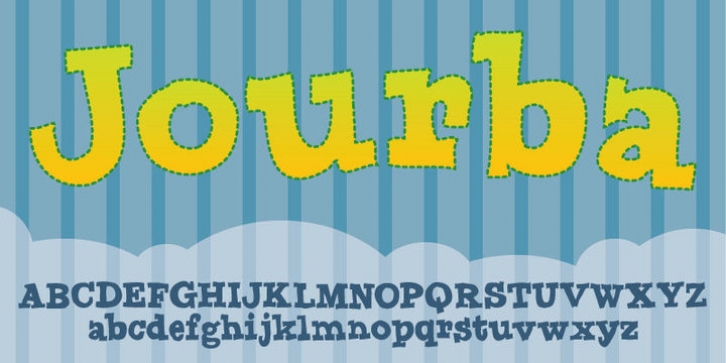
Publisher: PizzaDude.dk
Jourba is my quick scribbled serif font. Here and there you can notice inkblobs and obvious clumbsy lines. Comes with alternate upper- and lowercase along with a lot of ligatures of the most used typical letter combinations!